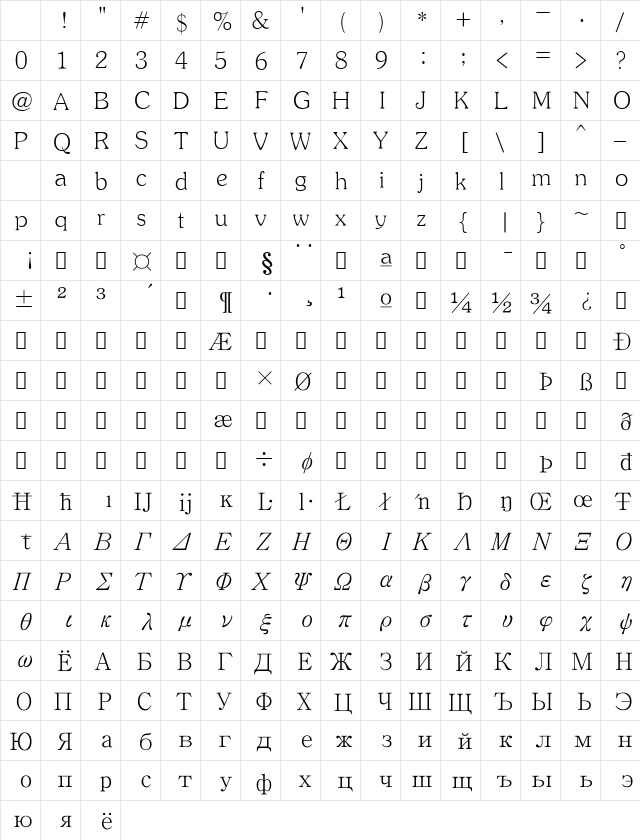
Complete HYSinMun-MyeongJo Regular glyph index. Displaying only characters natively supported by HYSinMun-MyeongJo Regular font.
HYSinMun-MyeongJo is a composed and adaptable typeface that performs quietly and consistently across a wide range of design contexts.